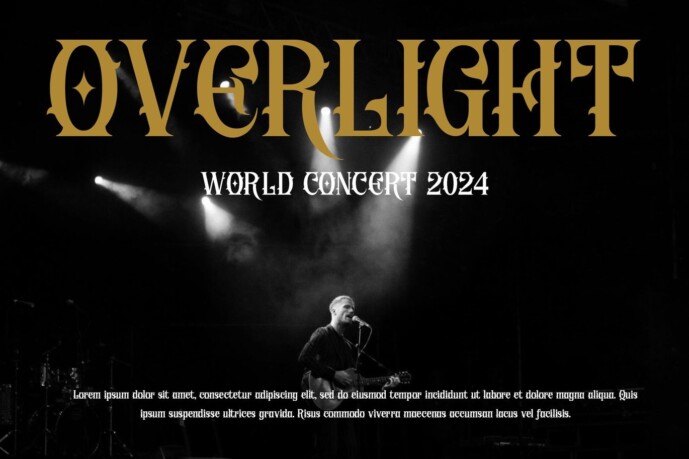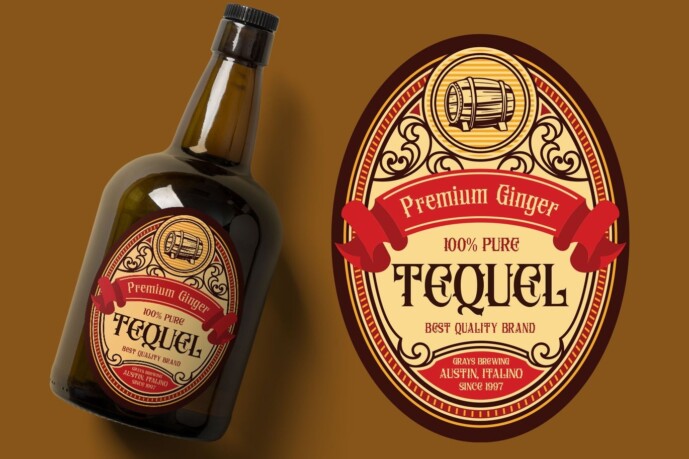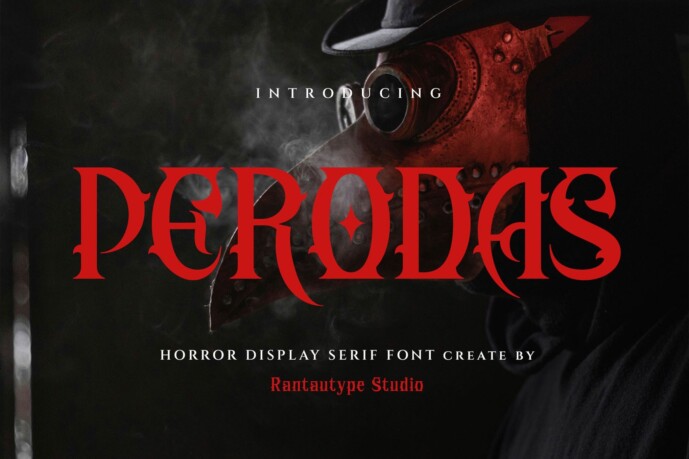
Perodas Horror Font
Perodas Font is a decorative horror display font inspired by the visual design of Dark Trailler. Perodas introduces you to a new side of the darkness of scary, mystery, horror and blood.
Perodas is a perfect choice for any creative endeavor such as logos, advertisements, stationery, branding projects, displays and magazines, invitations, headlines, corporate branding, product design, labels, commercial projects and many more projects with a touch of horror or dark.